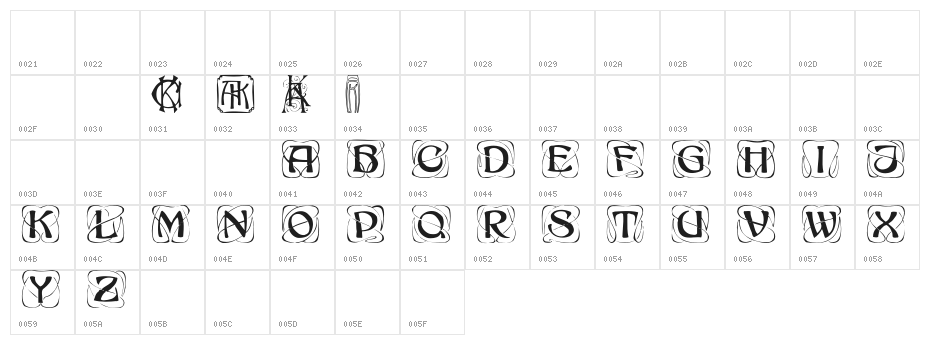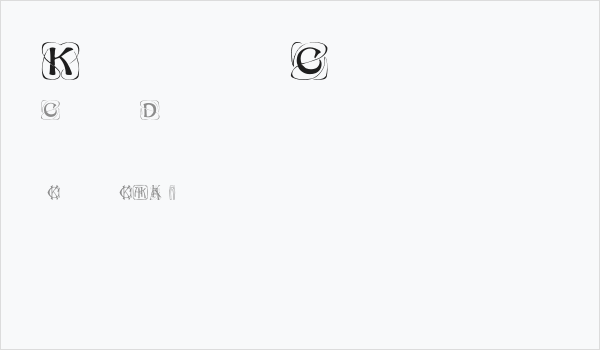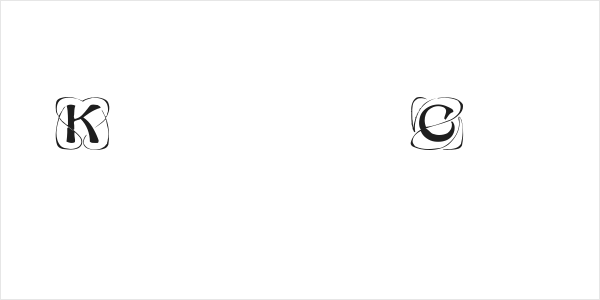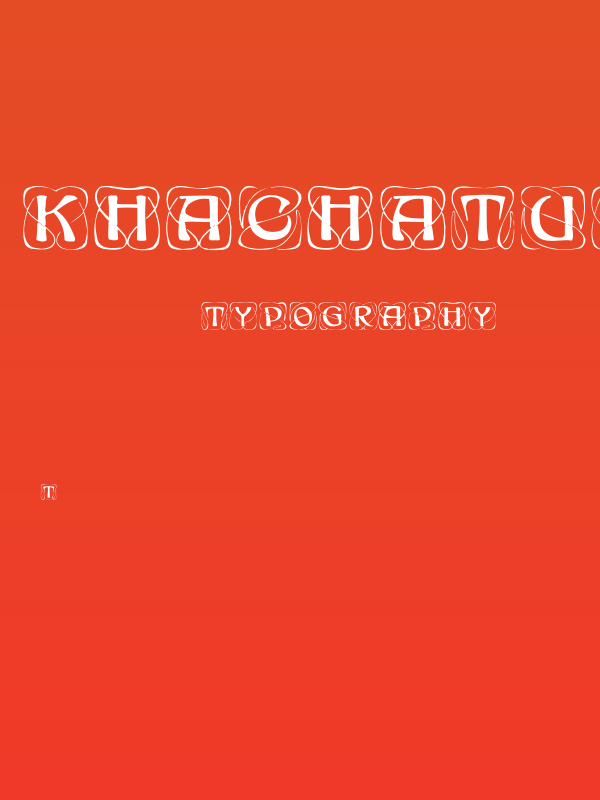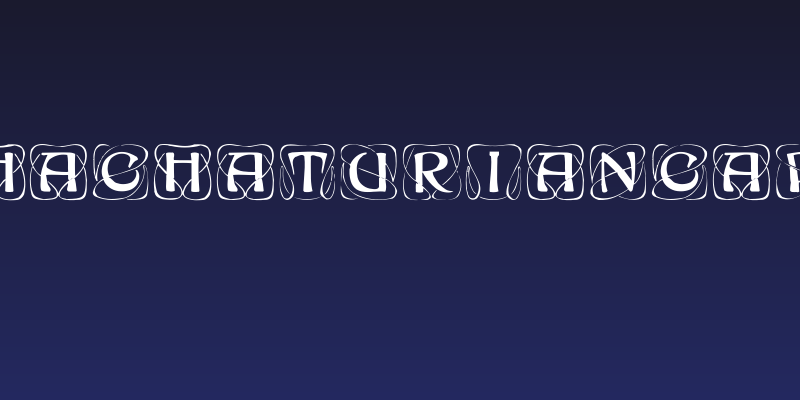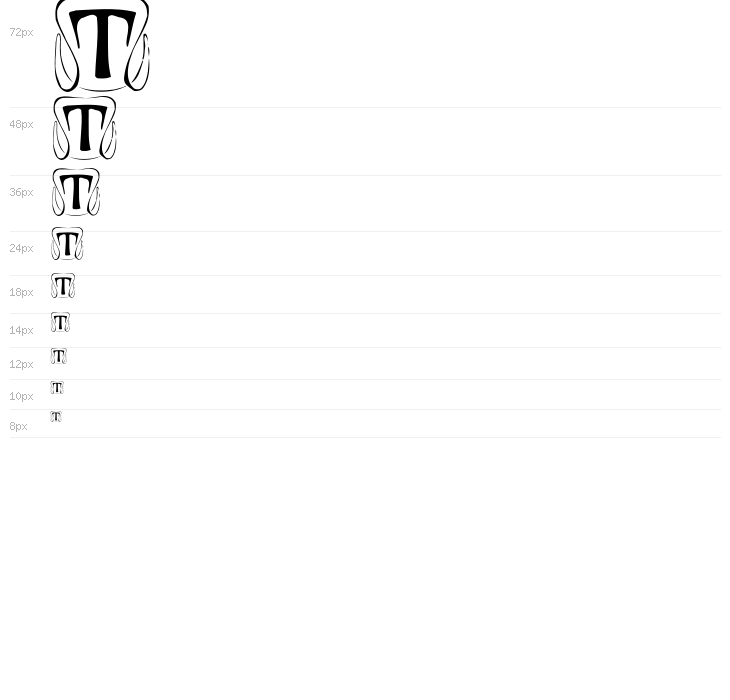
KhachaturianCaps Font
KhachaturianCaps Description
This font features an intricate and decorative style, characterized by its ornate and swirling embellishments that surround each letter. The uppercase letters are enclosed in a square-like frame, adding a sense of structure to the otherwise fluid and artistic design. The font's unique appearance makes it stand out, with each character appearing as a work of art. The elaborate details suggest a sense of elegance and sophistication, making it suitable for projects that require a touch of luxury and creativity. Its distinctiveness is ideal for capturing attention and making a bold statement.
Use CaseLogos, Headlines, Artistic projects
Proposed ProjectsIdeal for luxury branding, artistic posters, invitations, and decorative headings.